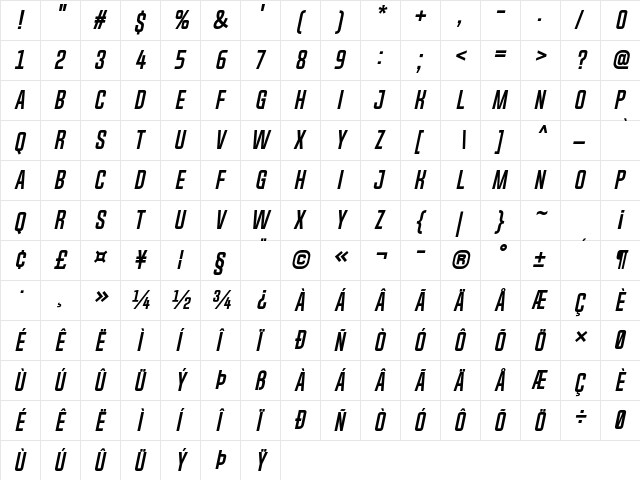
Chosence Bold Italic Font Preview
| Foundry | Situjuh Font |
| Designer | Situjuh Nazara |
Design Context for Chosence Typeface
Chosence offers clean, dependable letterforms without strong stylistic allegiance, making it a practical choice for designers who need flexibility. The dynamic lean of this cut emphasises speed and emphasis in any layout. The heavy weight commands attention and anchors typographic hierarchies.
Pro Tip: Try Chosence for annotation and caption copy alongside an upright companion — the contrast in angle creates a dynamic but ordered typographic system.